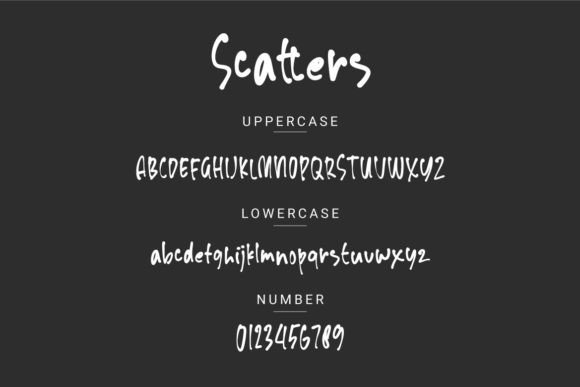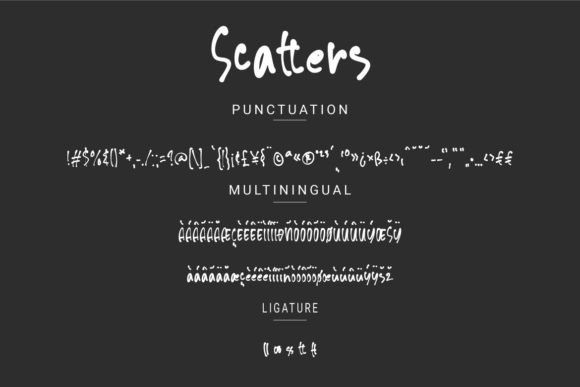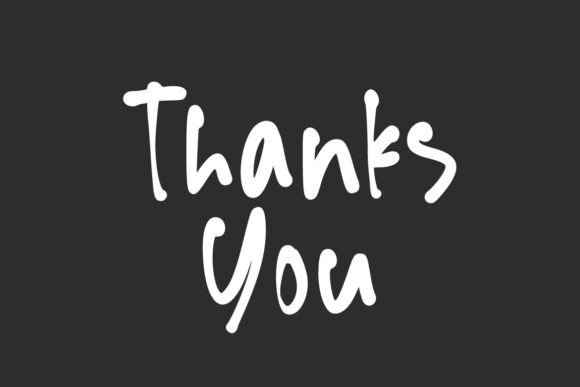
Introduction to Scatters Font
Have you ever been in the middle of a creative project, and the words just flow effortlessly onto the page? That’s the magic of working with the right design resources. For designers, finding the perfect font can make all the difference between a project that’s just okay, and one that truly shines. And that’s where the Scatters Font comes in – a beautiful, handwritten font that’s as free-spirited as it is high-quality.
With its relaxed, organic aesthetic and slightly messy feel, the Scatters Font is perfect for designers who want to add a touch of personality to their work. Whether you’re creating a branding campaign or designing a brochure, this font is sure to bring a sense of authenticity and playfulness to your project. And the best part? It’s available for free download, making it a valuable resource for designers of all levels.
- High-quality design: This font features intricate and detailed designs, perfect for adding a unique touch to your creative project.
- Large character set: With over 100 unique characters, Scatters Font offers a wide range of possibilities for creative expression.
- Unique design style: Scatters Font’s eclectic and whimsical design style sets it apart from other fonts, making it a great choice for designers looking to add a touch of personality to their work.
Honest Review: Scatters Font
I recently had the chance to work with the Scatters Font, and I have to say, it’s been a game-changer for my design projects. As a designer, I’m always on the lookout for high-quality design resources that can elevate my work and make it stand out.
Here are some things that really work well with the Scatters Font:
- ✨ The font is incredibly versatile and can be used for a wide range of creative projects, from logos to branding materials.
- ✨ The transparent background option is a huge plus, making it easy to layer the font over different images and designs.
That being said, there are a few limitations to keep in mind:
- ⚠️ The font is only available in a few different weights, which can make it a bit limiting for complex designs.
- ⚠️ The font doesn’t come with as many language support options as I would like, which can be a problem for projects that require multiple languages.
Overall, I’m really impressed with the Scatters Font and would definitely recommend it to other designers looking for a high-quality, free design resource.
For the most out of Scatters Font, use it for designs that require a creative and unique touch. This font is perfect for posters, flyers, social media graphics, and presentations. You can also use it for branding and logo design. Remember to use a high-quality design resource like Scatters Font to give your project a professional look.